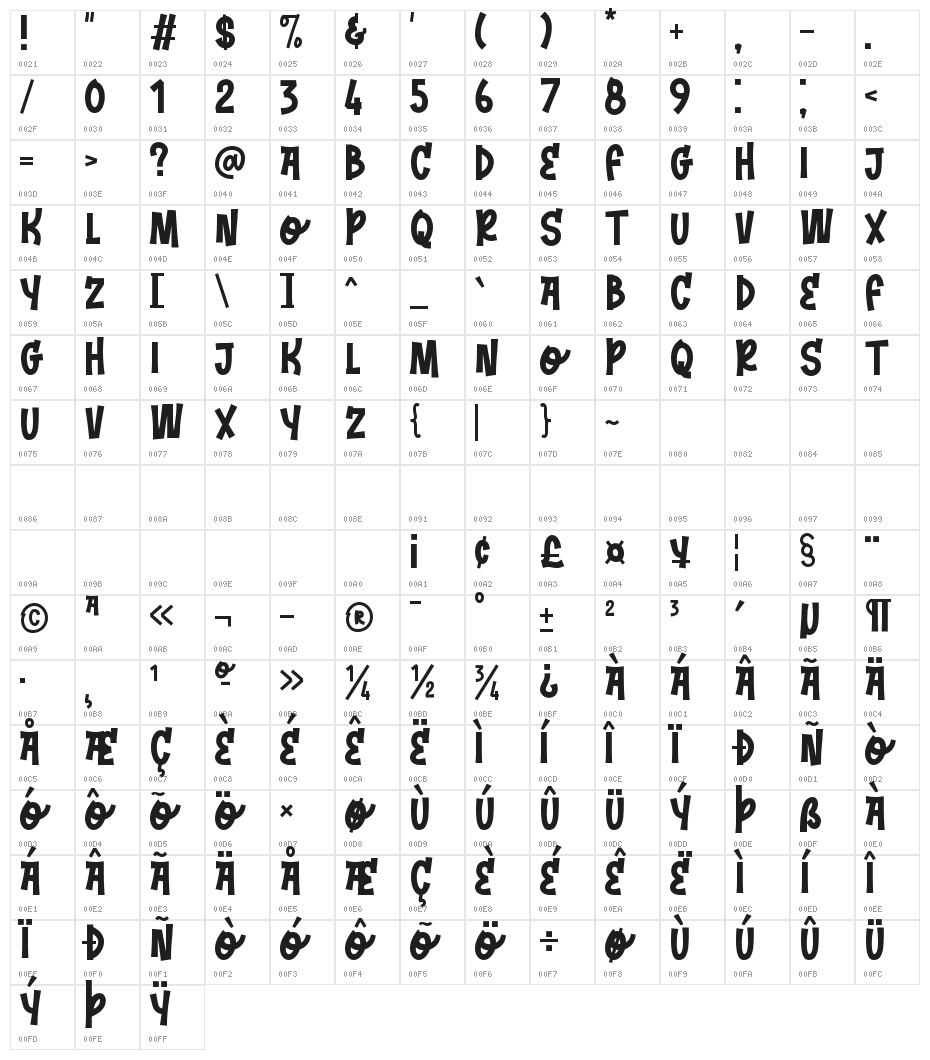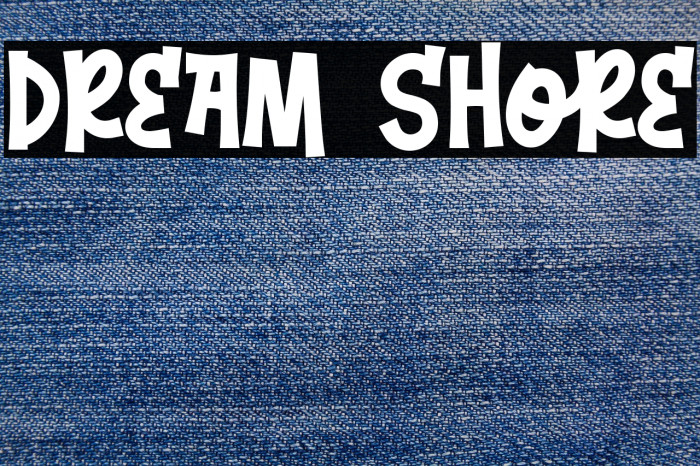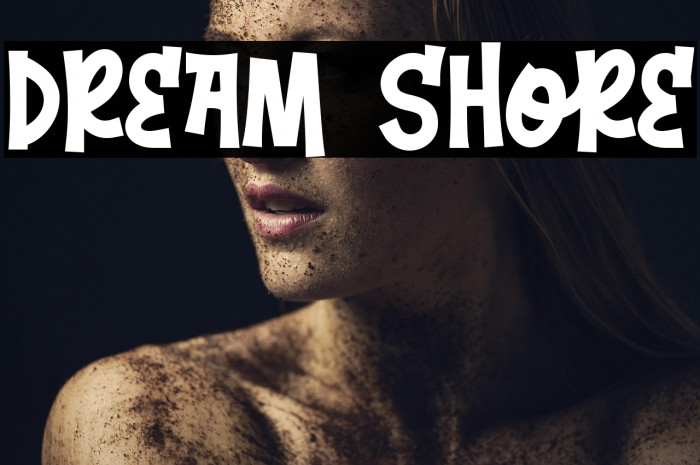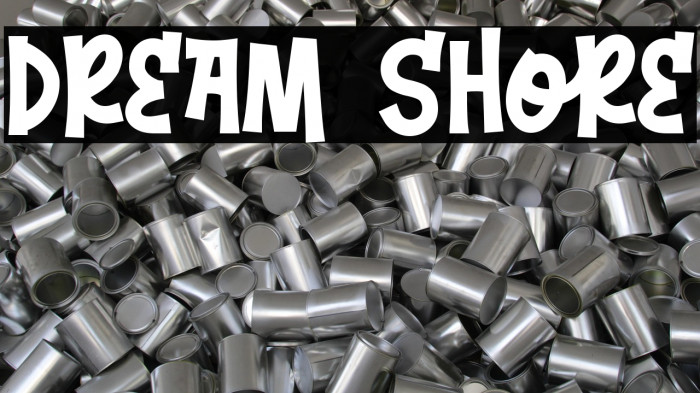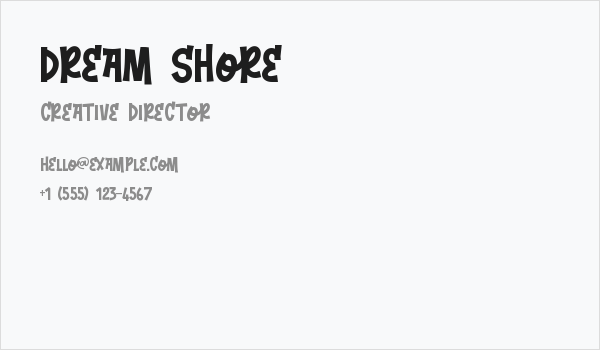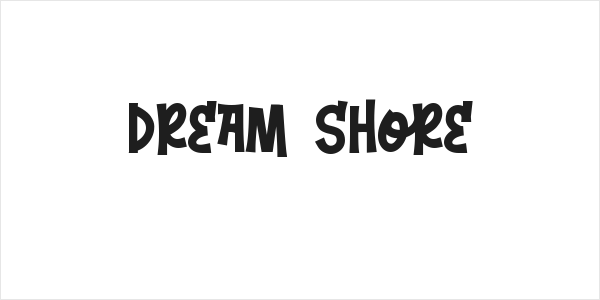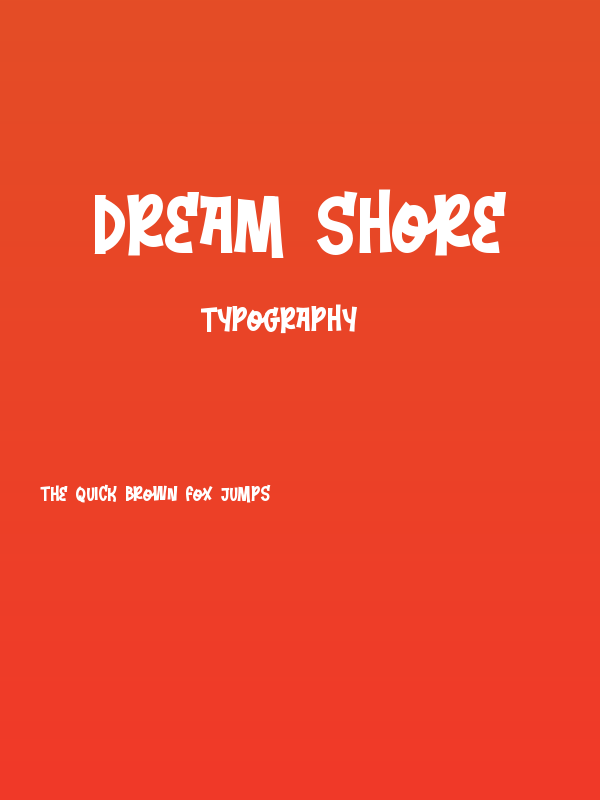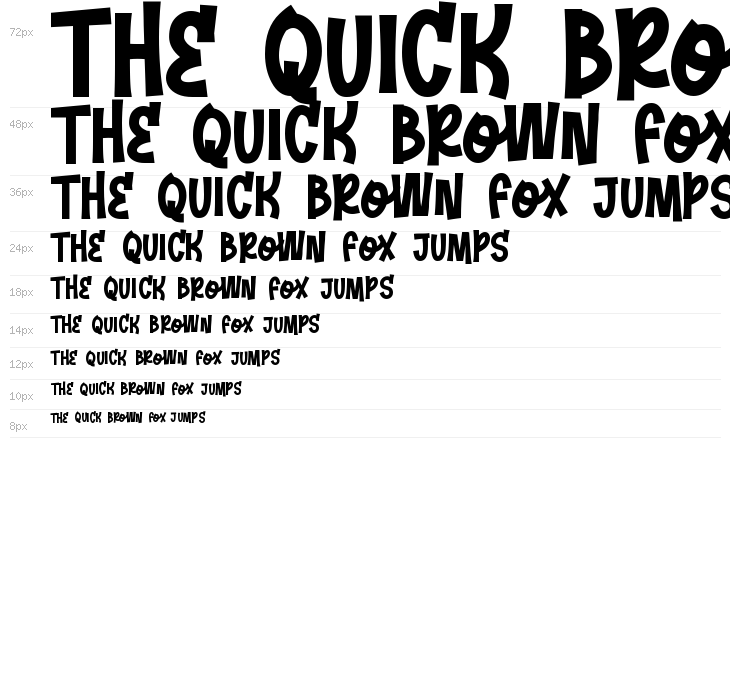
Dream Shore Font
Dream Shore Description
A playful and bold decorative font with exaggerated curves and a hand-drawn feel, suitable for eye-catching designs.
| Overall Style | Playful, Hand-drawn |
| Use Case | Headlines, Posters, Branding |
| Proposed Projects | Posters, children's books, playful branding. |